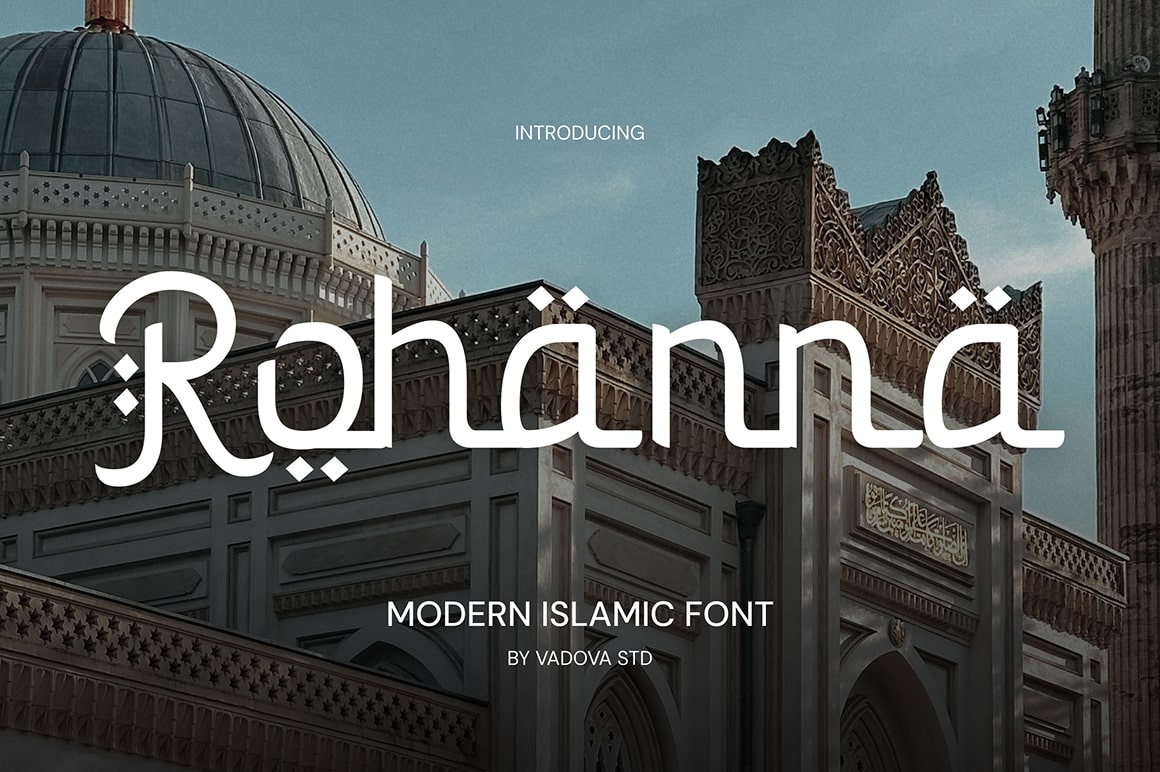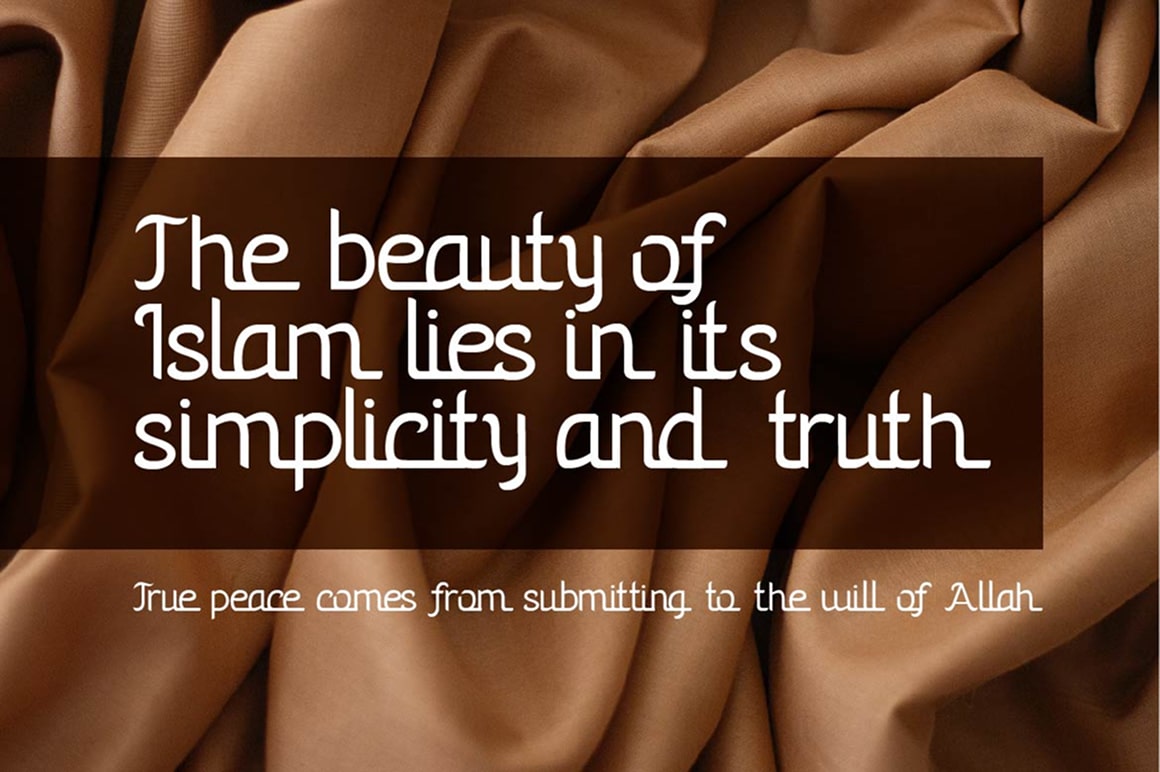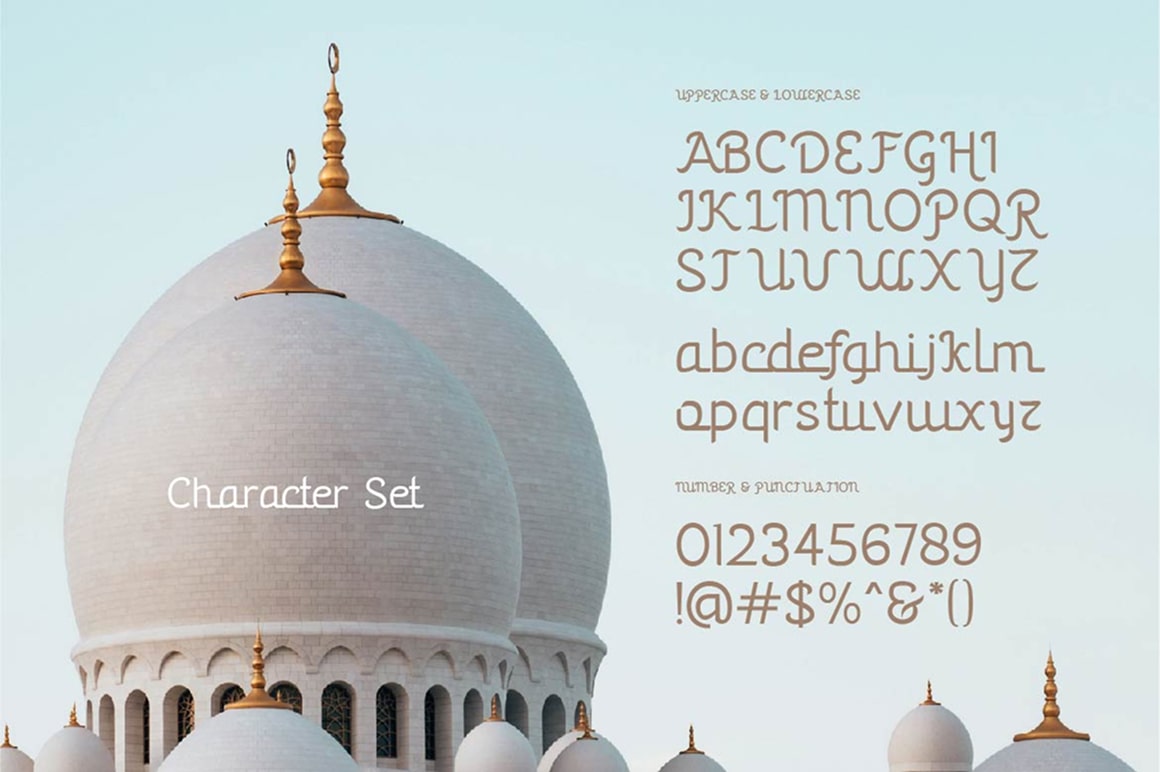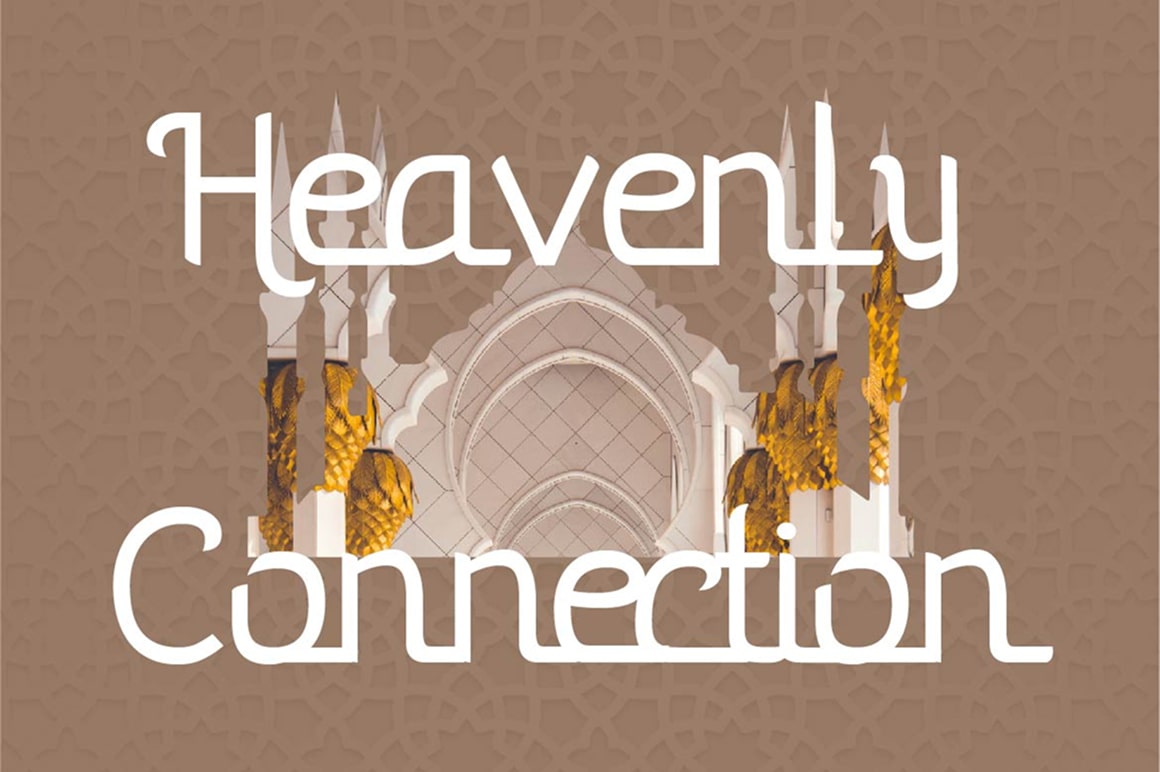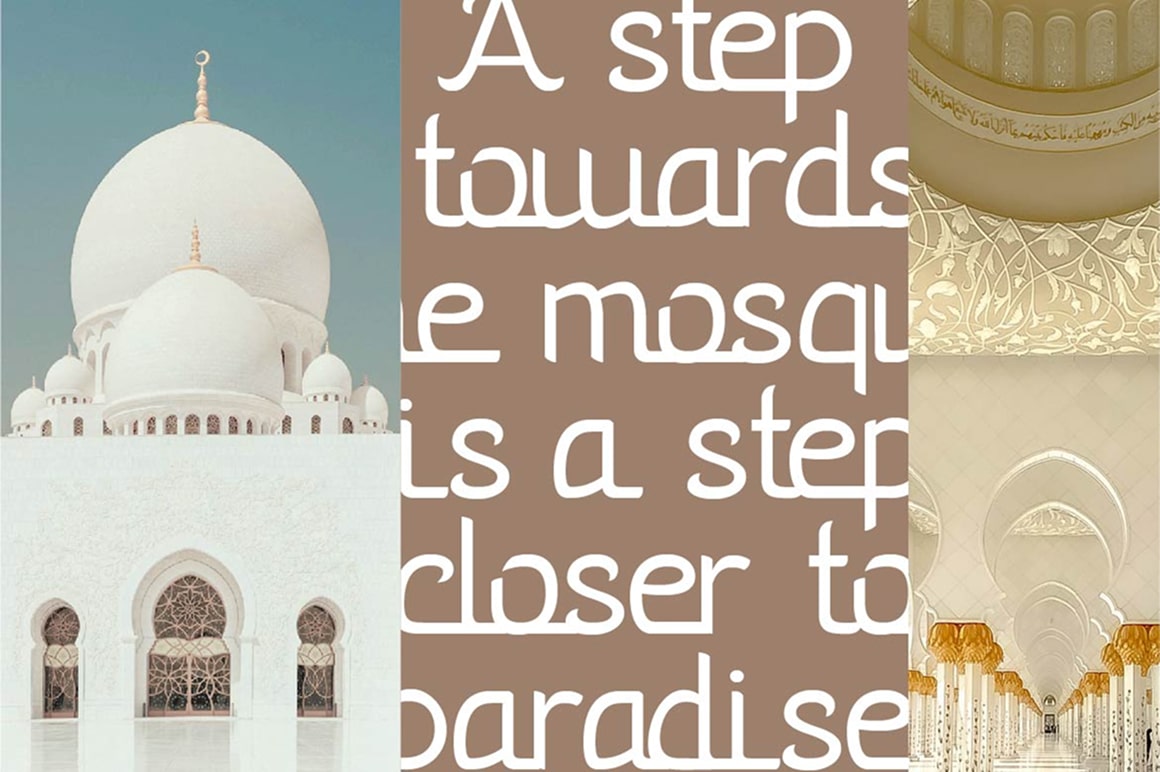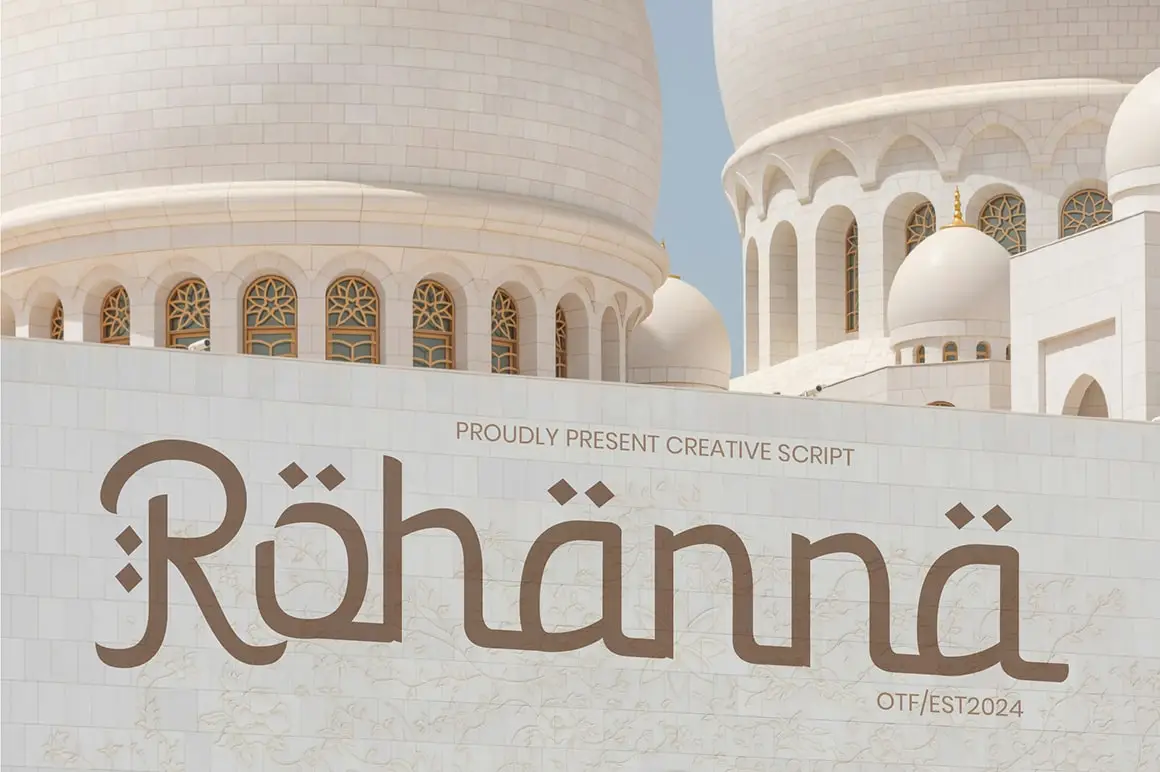
Rohanna Creative Script Font
Elevate your designs with Rohanna Creative Script Font, a modern script font perfect for adding elegance and style to your projects. Whether it’s for quotes, logotypes, magazine headers, or more, this versatile typeface ensures your text stands out beautifully.
• Uppercase & Lowercase characters
• Numeral & Punctuations